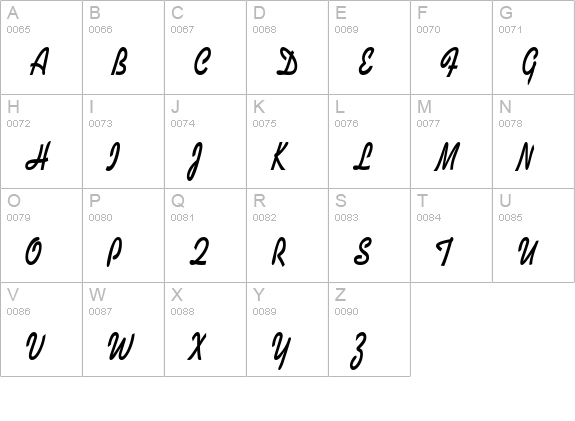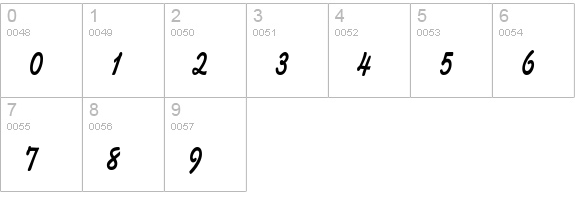
DinerScriptCondensed Font Details
DinerScriptCondensed font is a charming and playful typeface that brings a nostalgic touch to any design project. Inspired by vintage diner signs, this condensed font features quirky characters with a retro flair that is sure to catch the eye. Perfect for menus, posters, logos, and more, DinerScriptCondensed adds a fun and unique element to your designs. And the best part? DinerScriptCondensed is completely free to download at FontsMarket.com! With just a few clicks, you can add this delightful font to your collection and start using it in your projects right away. Don't miss out on this opportunity to bring a touch of vintage charm to your designs with DinerScriptCondensed font. Download it now and let your creativity shine!